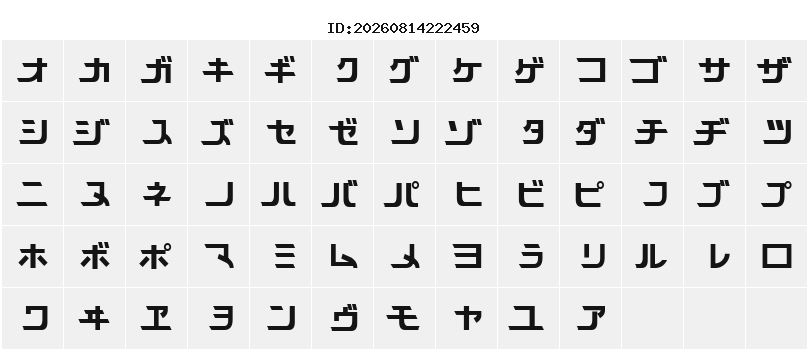
Star Trek Preview
About Star Trek.ttf
Star Trek.ttf is a modern, elegant sans-serif font designed for ultimate readability and visual harmony. Perfect for branding, headlines, web design, and print materials.